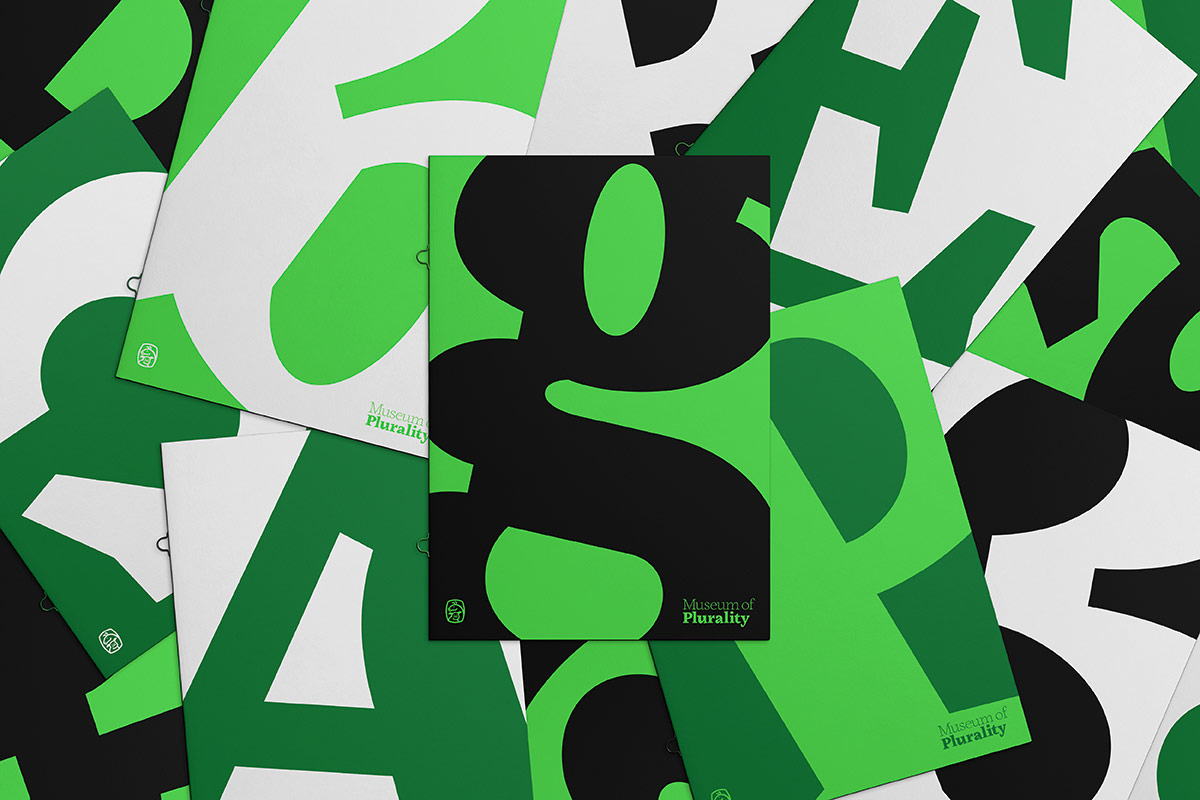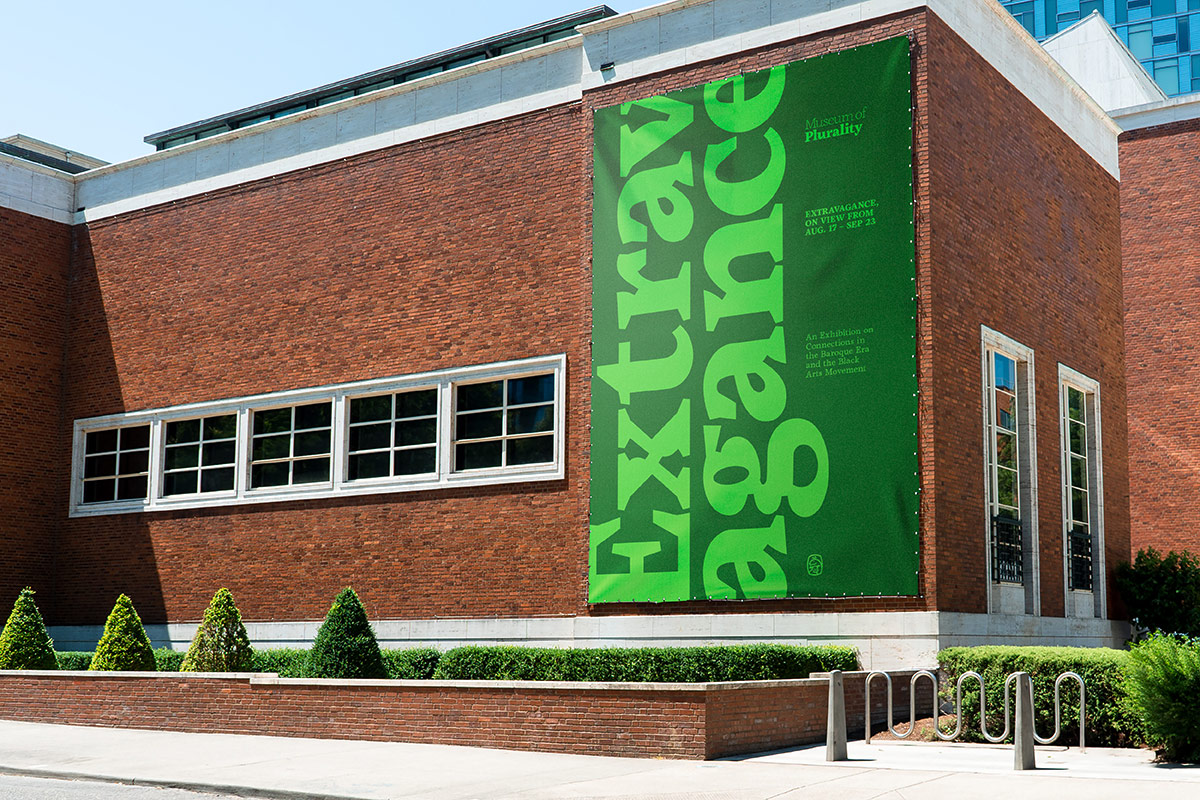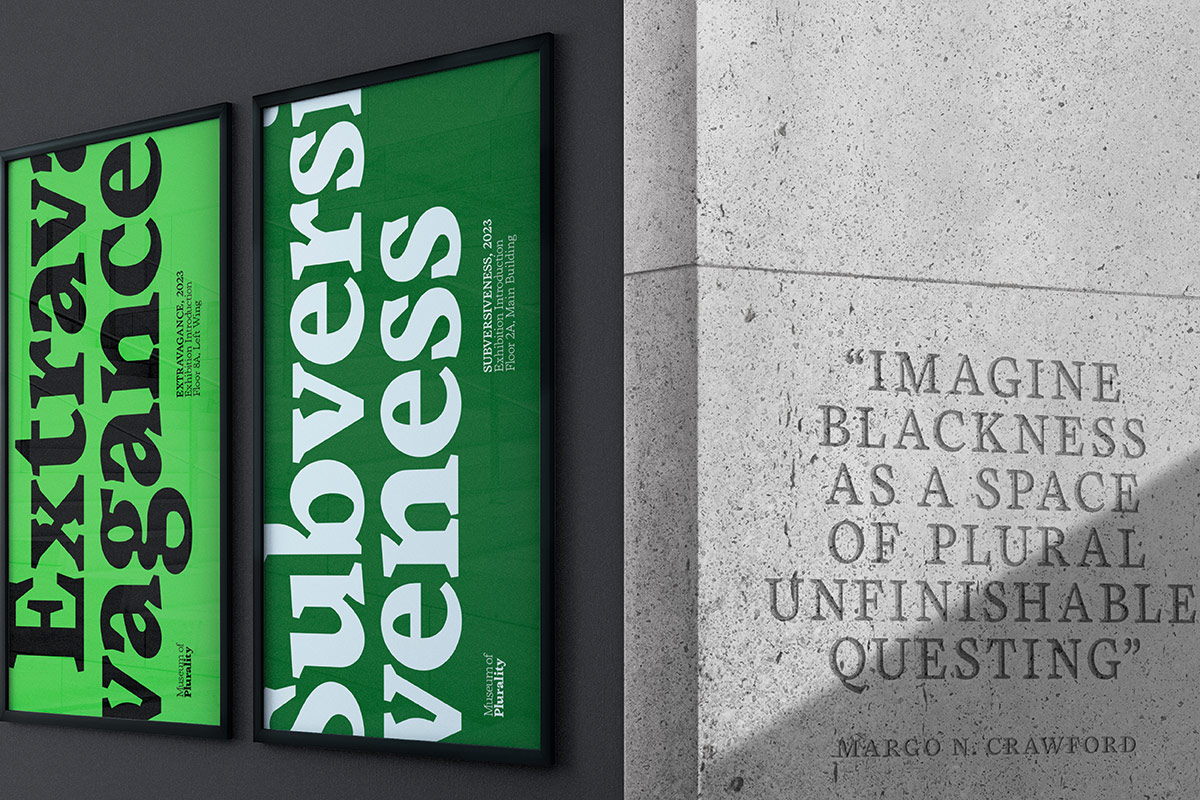
Spades is a contemporary Baroque typeface that blends historical influences of ornate 18th century typography with the modern device of an inktrap. Designed by Oakland-based type designer Sascha Hopson, the family was released through Order Type Foundry in July 2023.
The family explores the juxtaposition of two distinct historical periods: the Black Arts Movement and the Baroque Era. While seemingly contradictory, Spades finds an overlap and forges its voice as a typeface through the extravagance, expression, and attitude of the respective eras.
The origins of Spades began with Hopson reflecting on the work of and paying homage to revered artist David Hammons. A key piece of inspiration early on in the project was Hammons’ collection of body prints starting from the 1960s. The use of spades or shovels were frequent motifs throughout his early work, centered around confronting and reclaiming the deprecating racial slur “spade.” Beyond his direct confrontation of this language, Hammons used perversion in his art to ask provocative questions such as, what is Black art, what does it mean to make Black art, and can it be free to be anything?
The Spades family originated from sketch explorations. Foundationally, the base of Spades is an old-style design. When Hopson dove deeper into stylings of the 18th century, he discovered the scalloped-serif construction of Fleischmann’s work. Through early exploratory sketches, he attempted to combine the modern visual device of an inktrap with these historical foundations. This exercise in merging two opposing styles leaned into the thinking of uncovering expression and subversion in Black art. The amalgamation created tension that—through later refinement—found a visual relationship.
Spades is a meditation on subversion through these juxtapositions, and an homage to the expansiveness of blackness in the medium of a typeface.
Spades
Foundry: Order Type Foundry
Designer: Sascha Hopson
Mastered: Tiny Type Co.
Release: July 2023
Weights: Thin, Light, Regular, Bold, Black